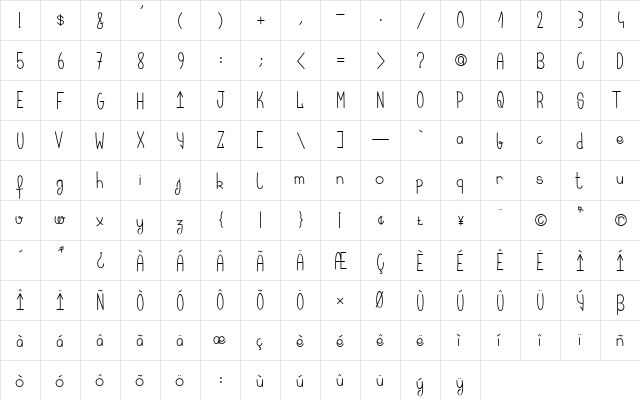
Kerala Quest Regular
Design Context for Kerala Quest Typeface
Kerala Quest offers clean, dependable letterforms without strong stylistic allegiance, making it a practical choice for designers who need flexibility.